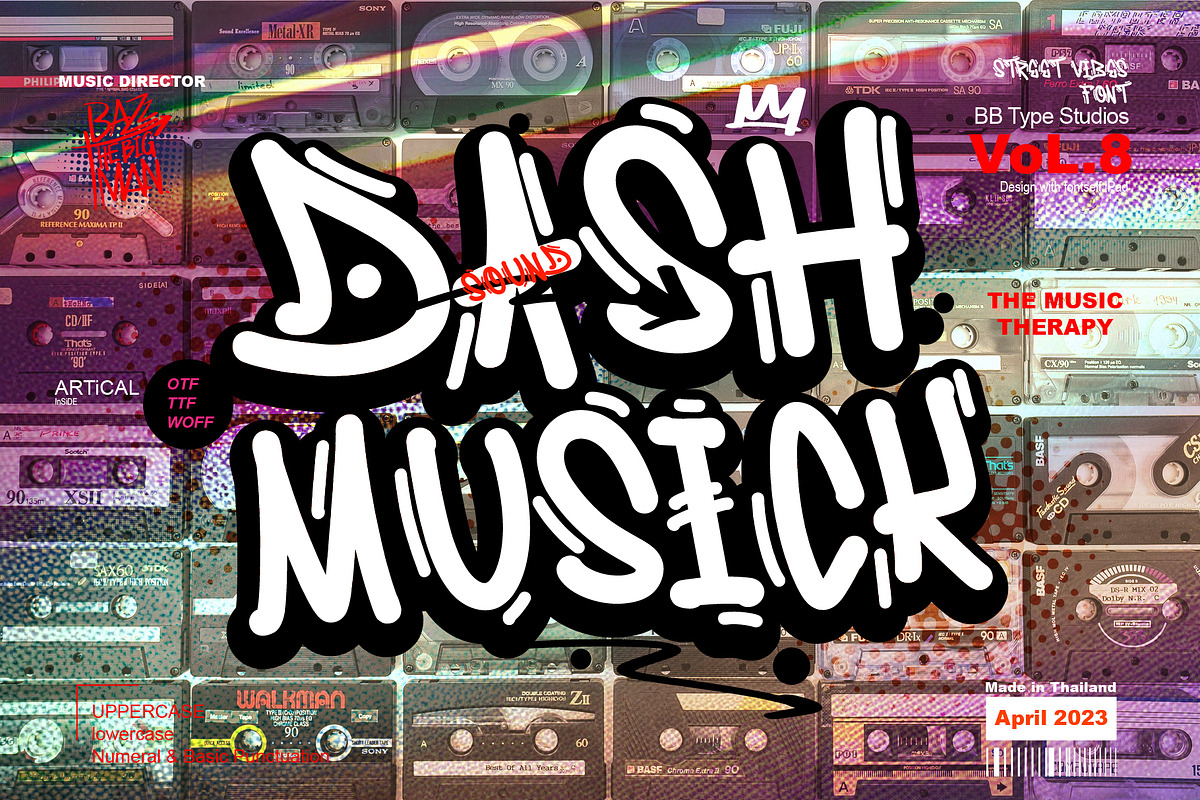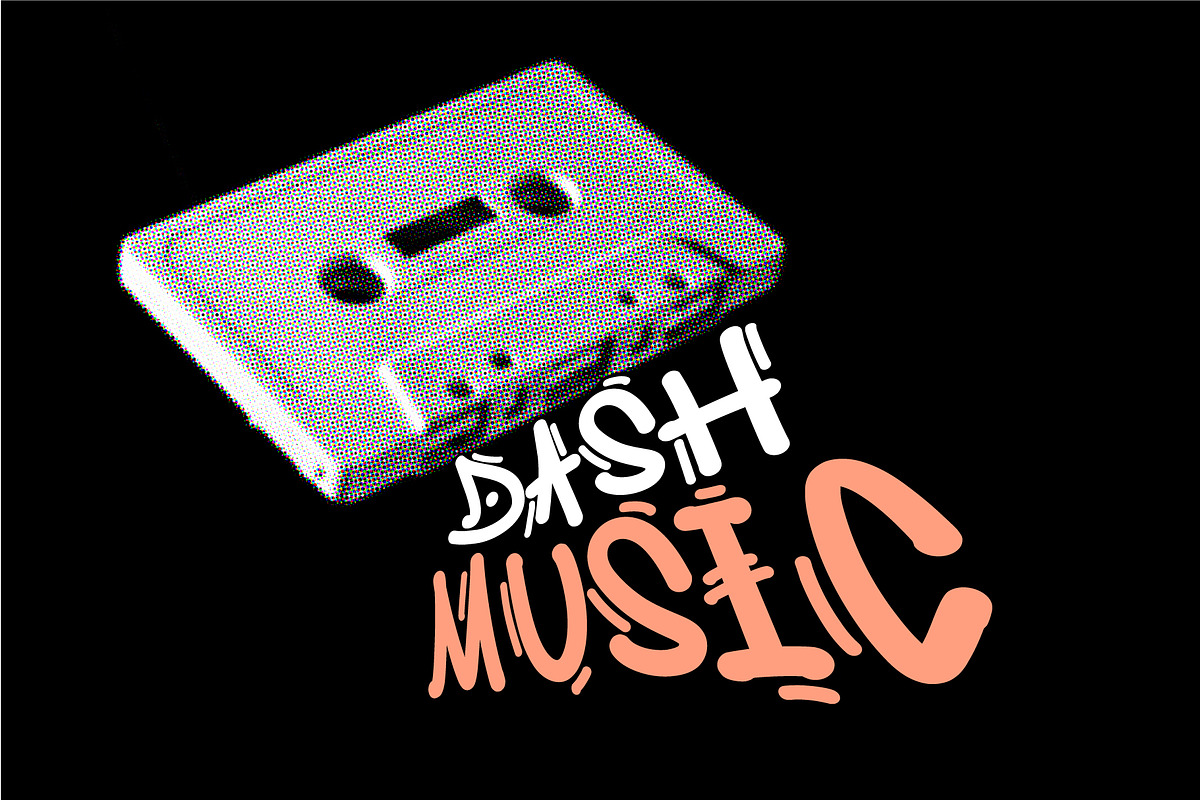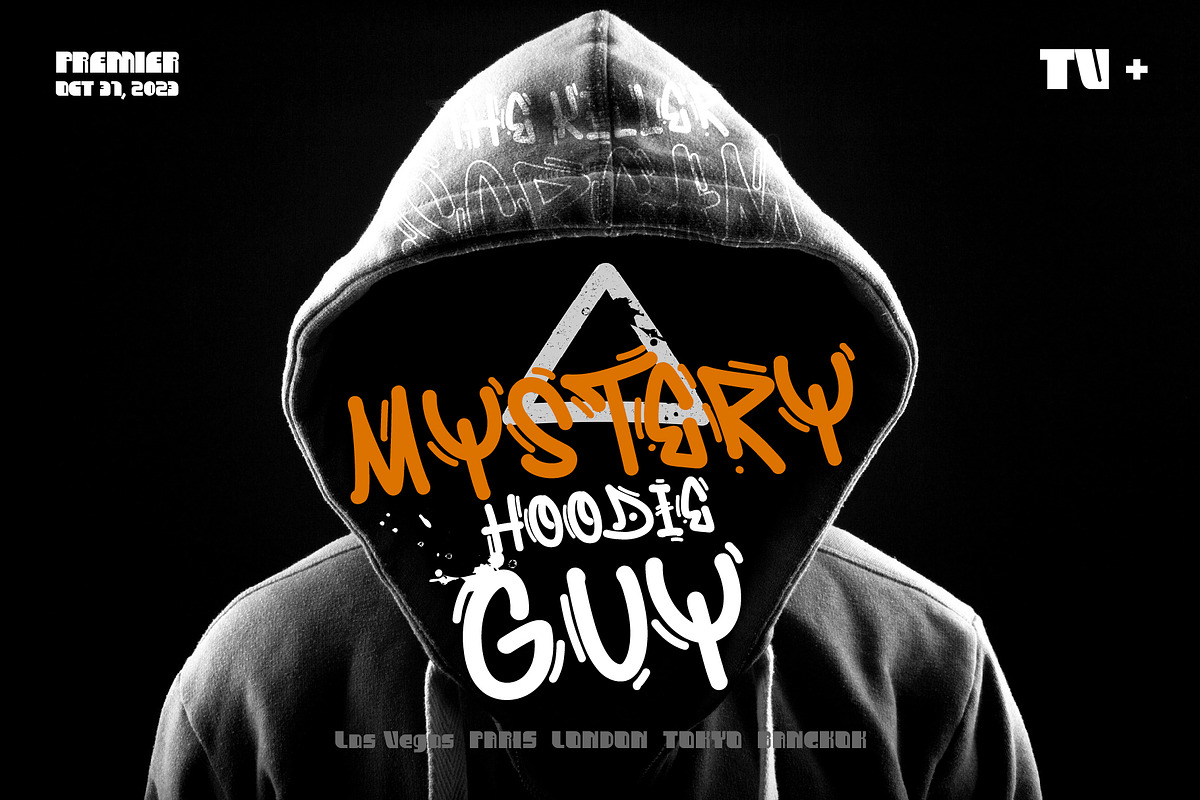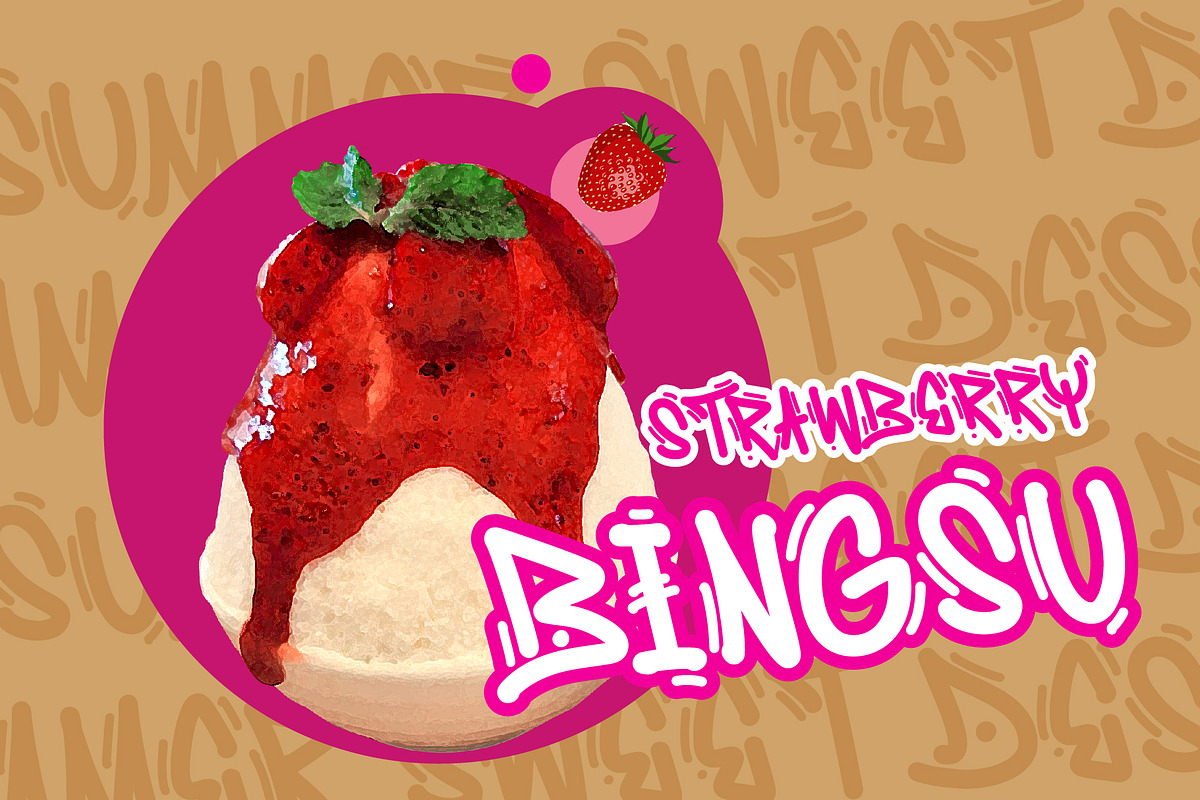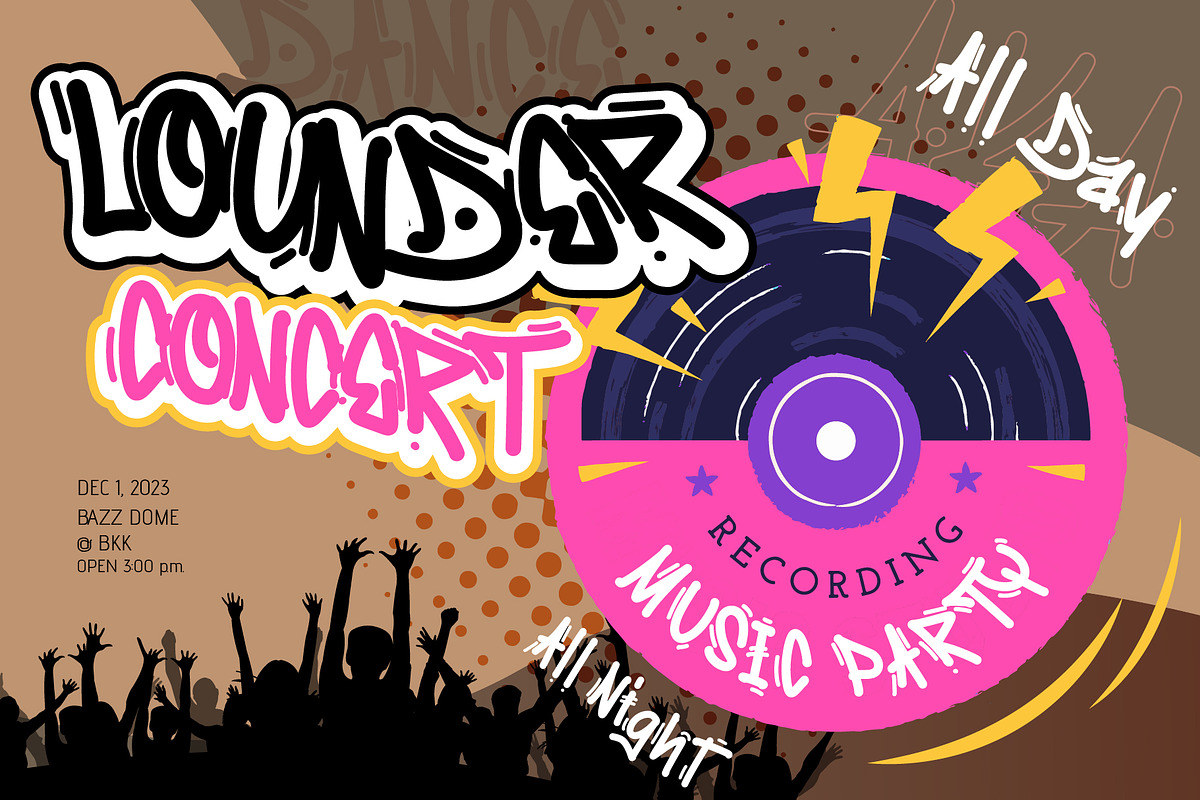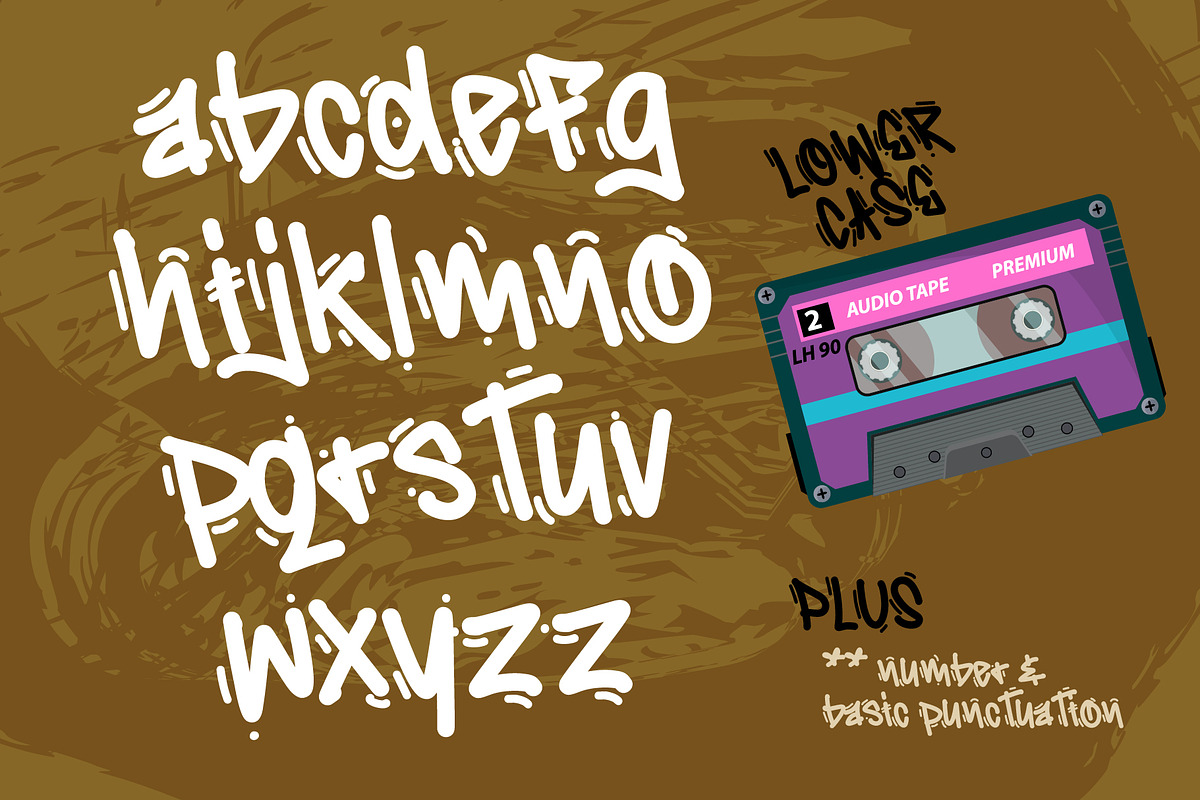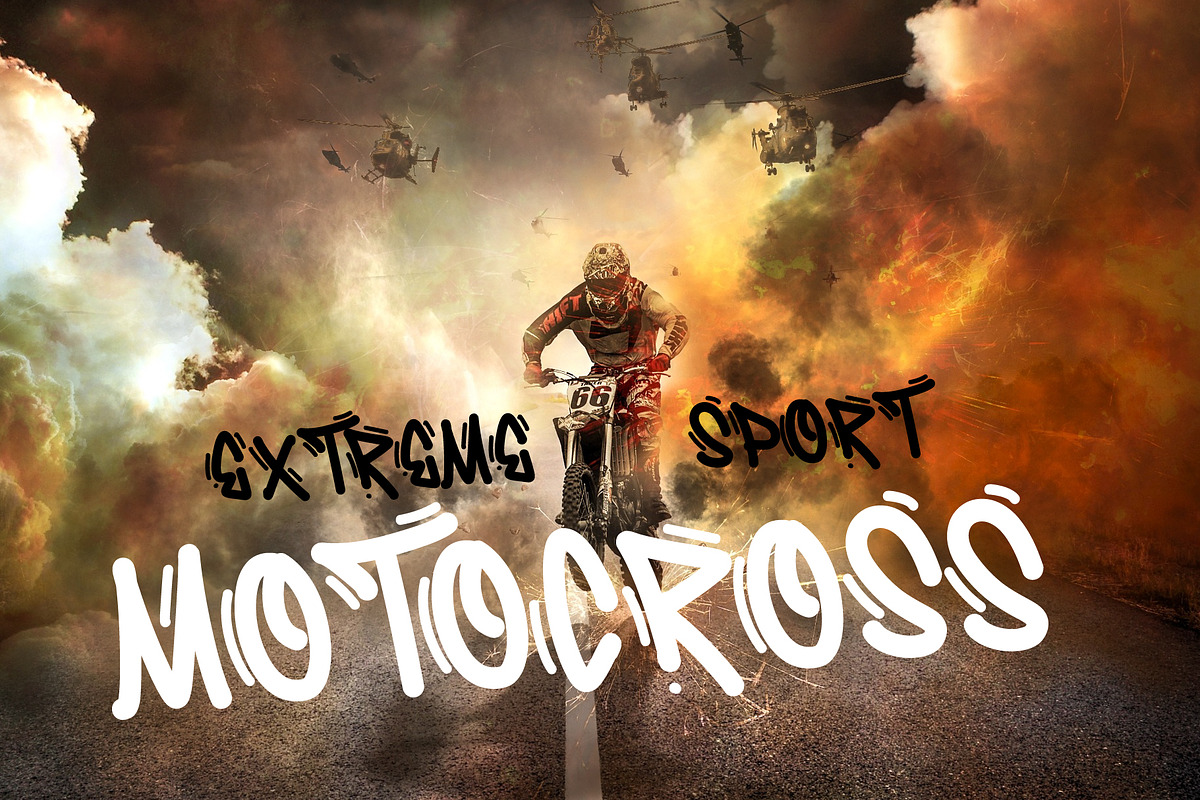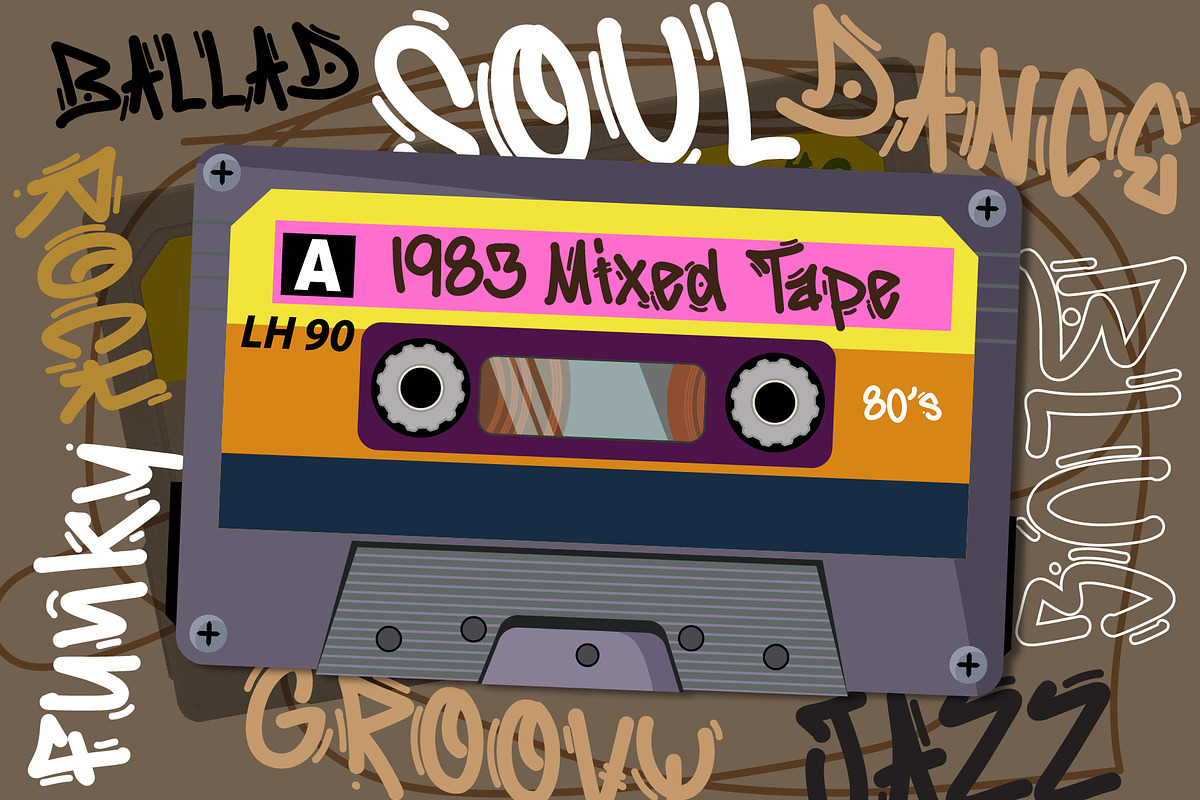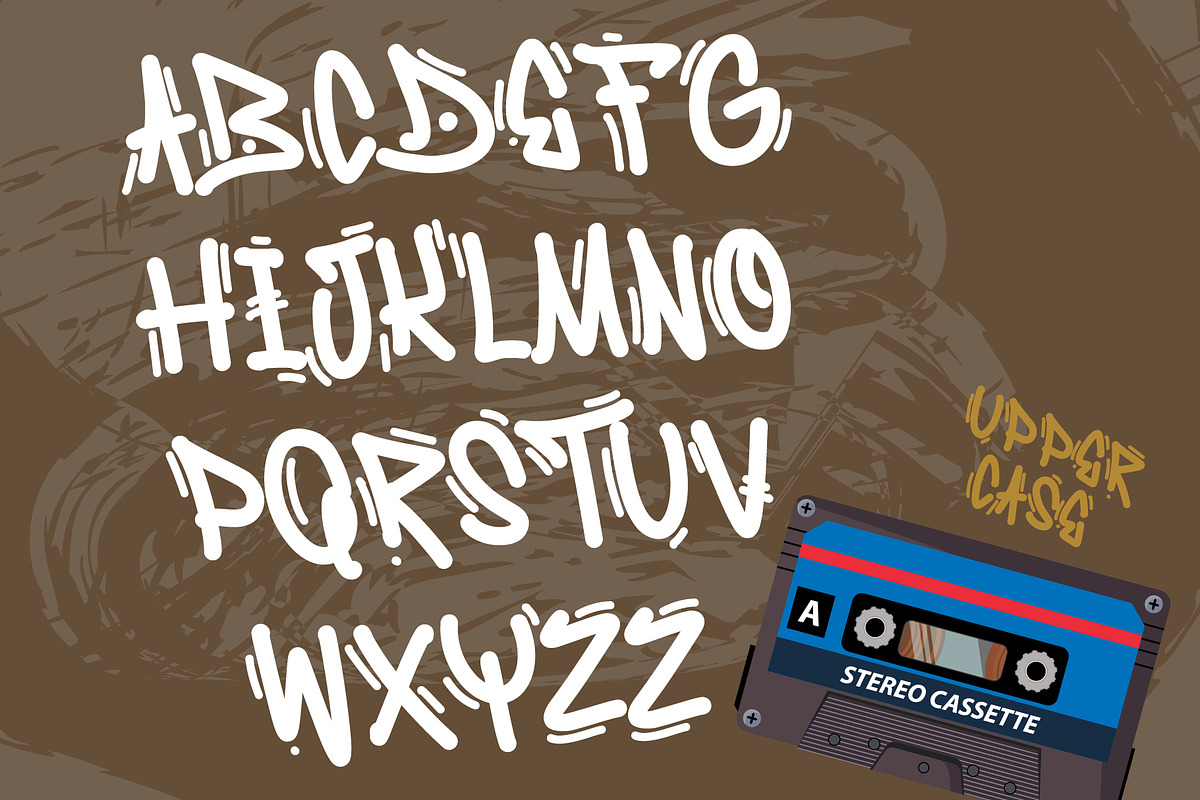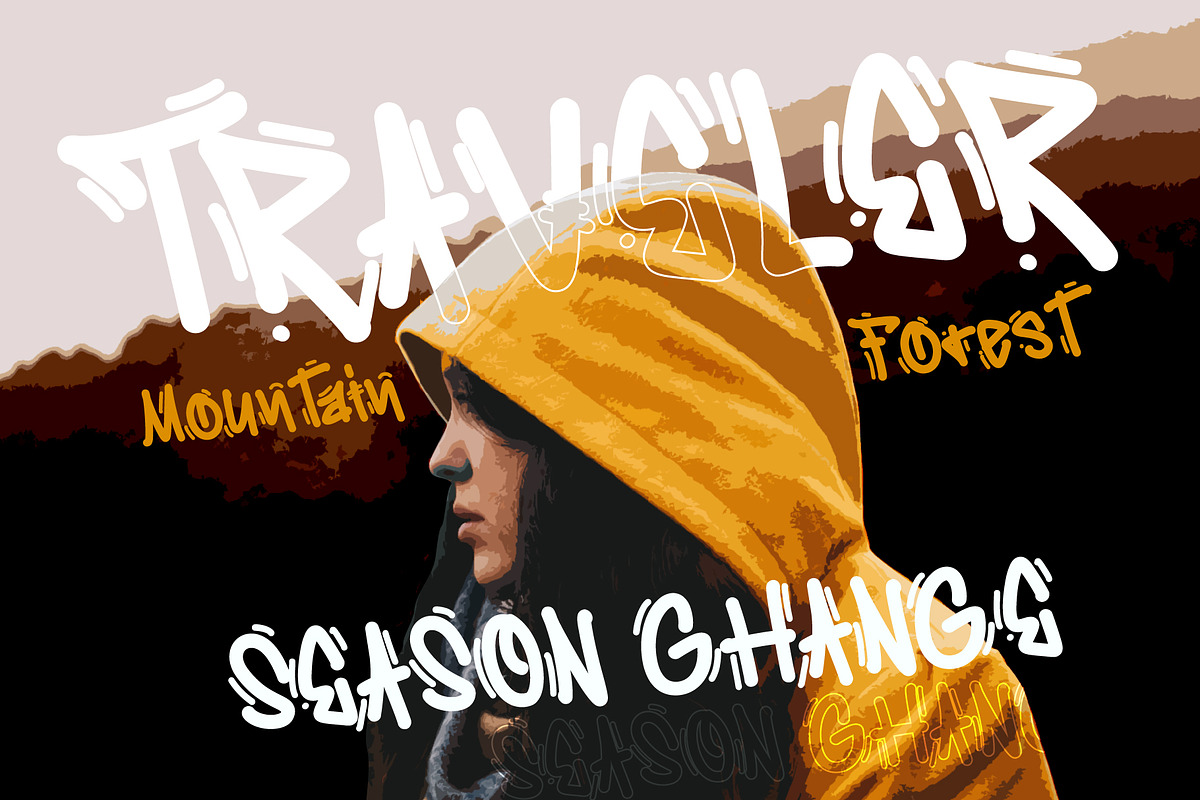
Dash Musick
Dash Musick is an awesome graffiti-styled display font that has a cool street art vibe. This font is suitable for designs such as t-shirts, sportswear, logos, advertisements, clothing, and more.